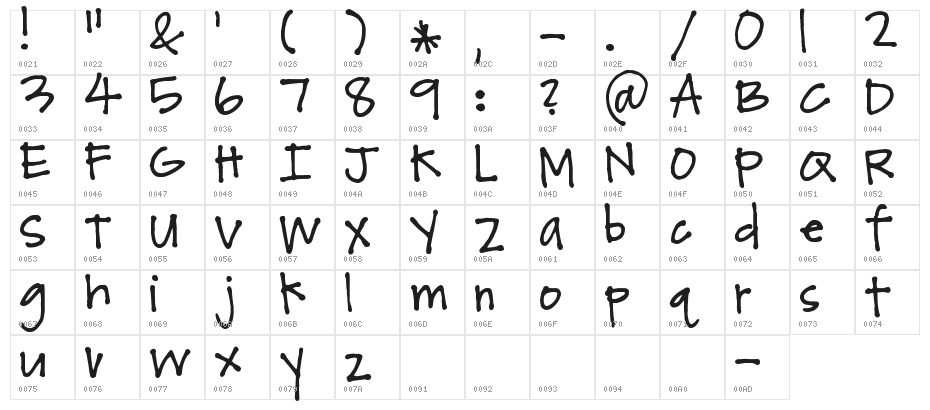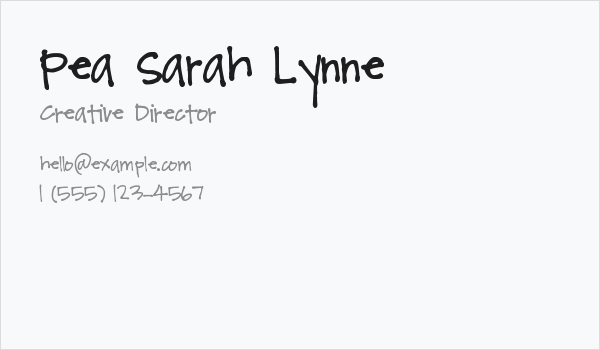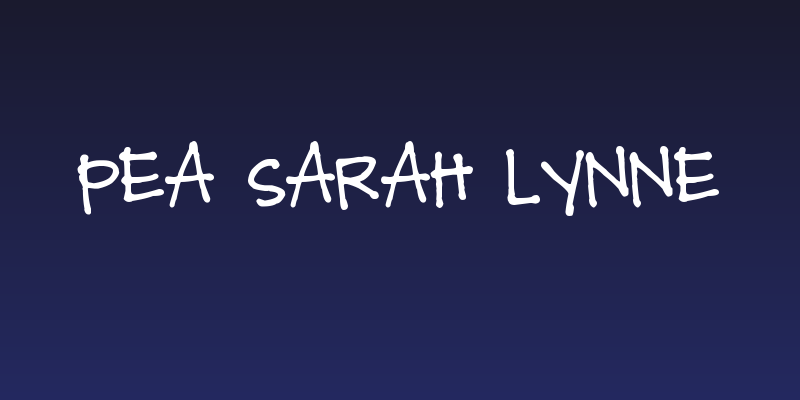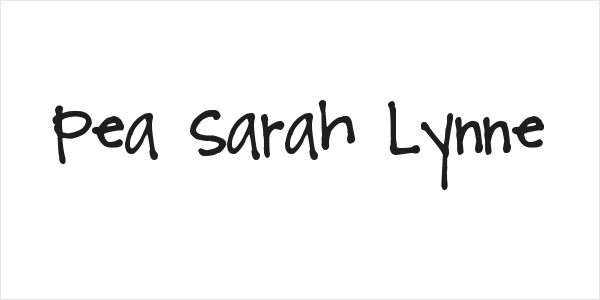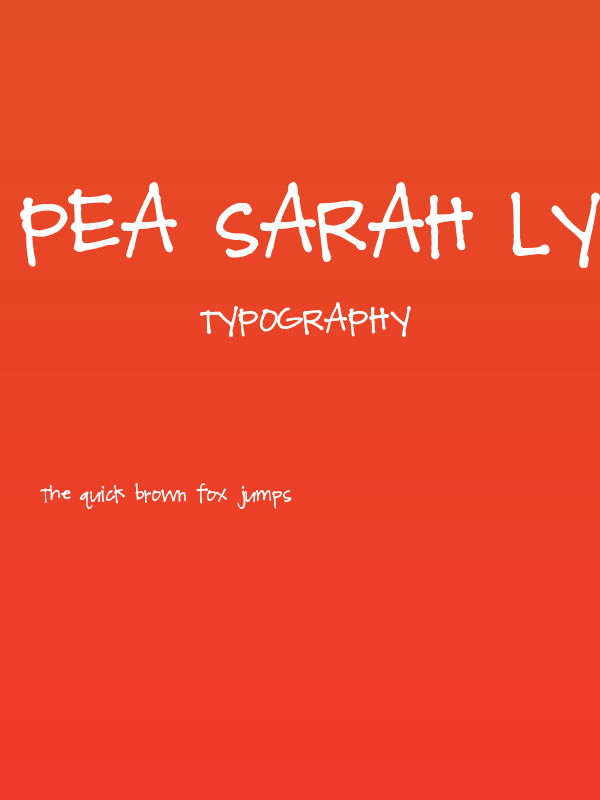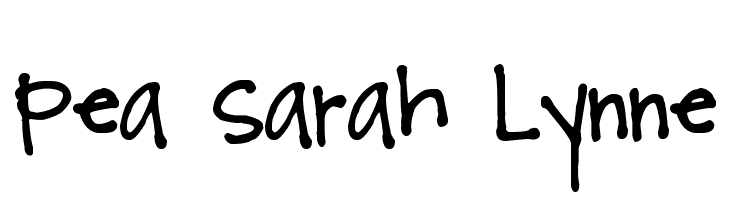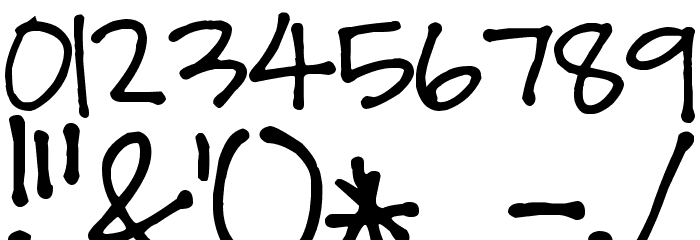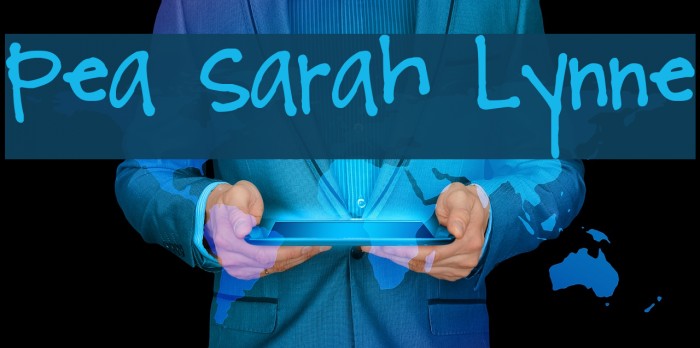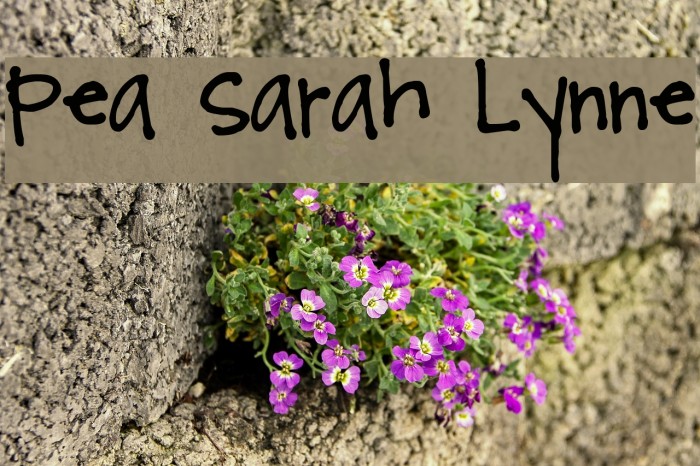
Pea Sarah Lynne Font
Pea Sarah Lynne Description
This font exudes a playful and casual handwritten style, characterized by its uneven strokes and informal appearance. The letters are slightly slanted, giving a dynamic and lively feel. The uppercase and lowercase letters maintain a consistent style, with rounded edges and a slightly irregular baseline that enhances its handwritten charm. The numerals and special characters follow the same informal aesthetic, making them blend seamlessly with the alphabet. This font is ideal for projects that require a personal touch, such as greeting cards, invitations, or casual branding materials.
| Overall Style | Casual, Playful |
| Use Case | Headlines, Informal text, Personal projects |
| Proposed Projects | Ideal for greeting cards, invitations, casual branding, and personal projects. |